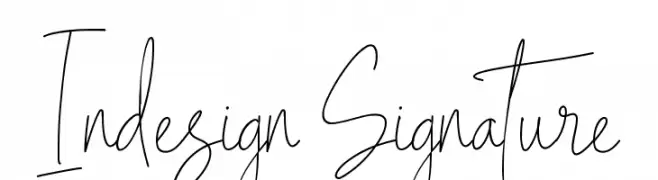
A bold, rounded font with integrated awareness ribbons in each letter.
A playful font with characters shaped like teeth, ideal for fun and dental-themed projects.
A modern, outlined font with a three-dimensional effect.
A bold, geometric font with sharp, angular edges and a ribbon-like appearance.
A dynamic, flowing script font with elegant cursive strokes.
A modern, geometric outline font with a futuristic aesthetic.
A bold, playful handwritten font with rounded strokes and a dynamic slant.
A casual, handwritten-style font with elongated, fluid strokes.